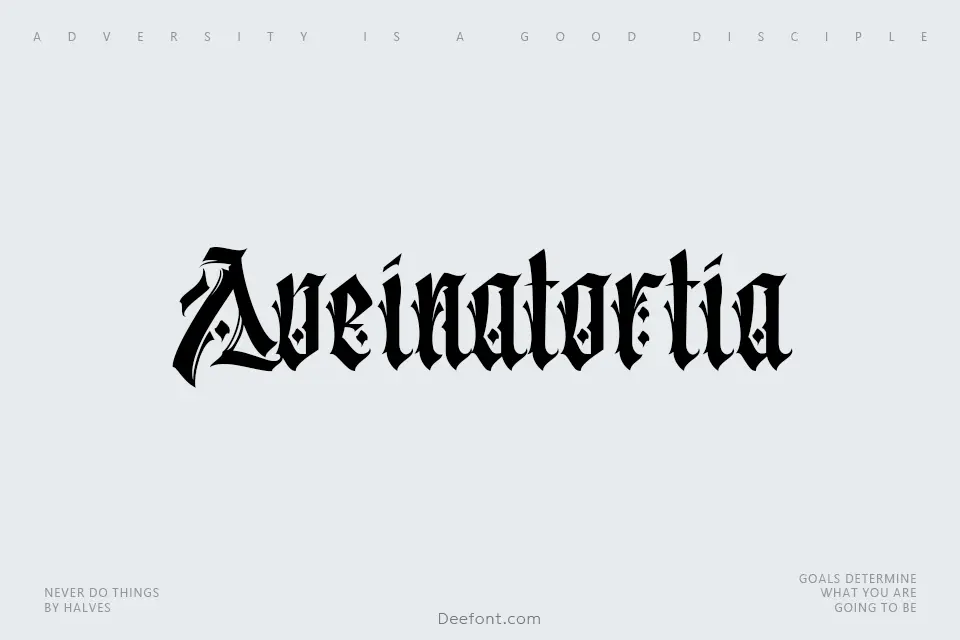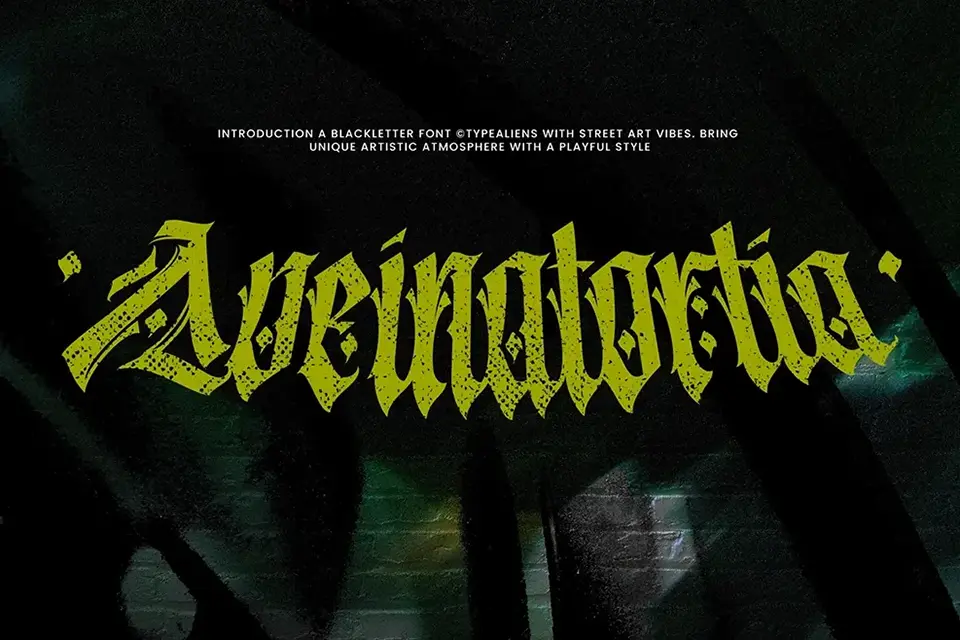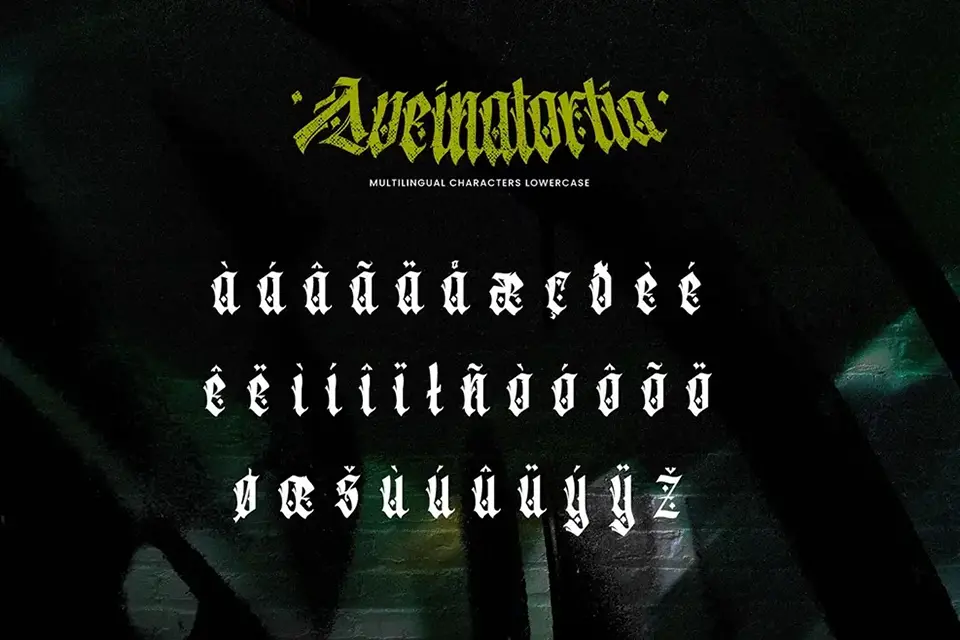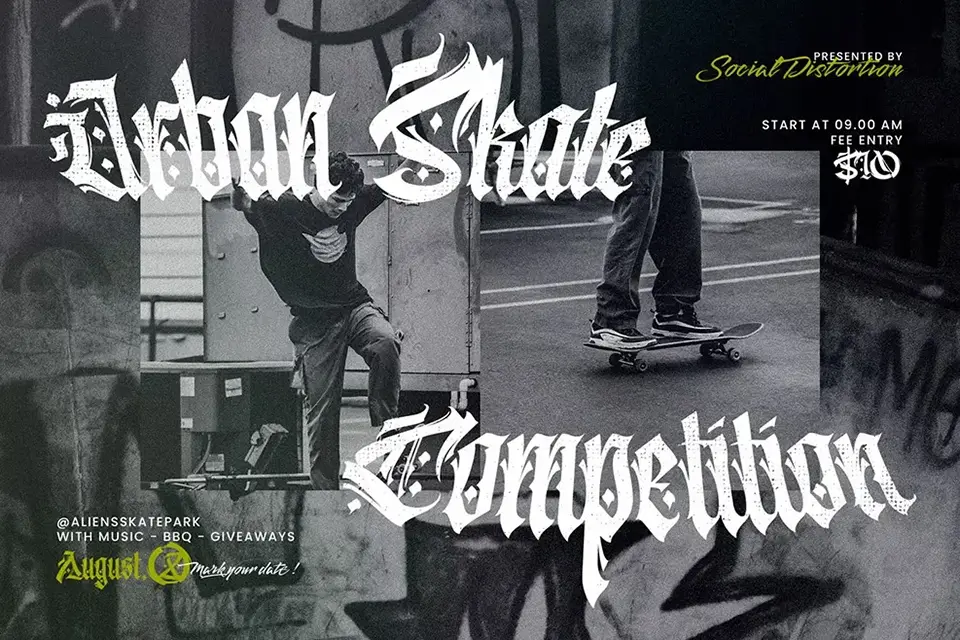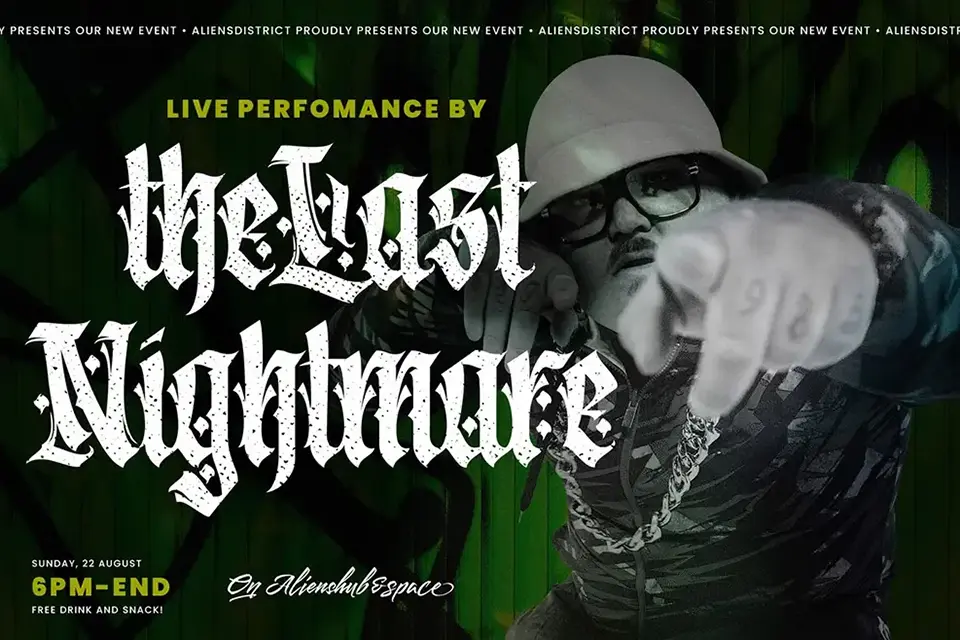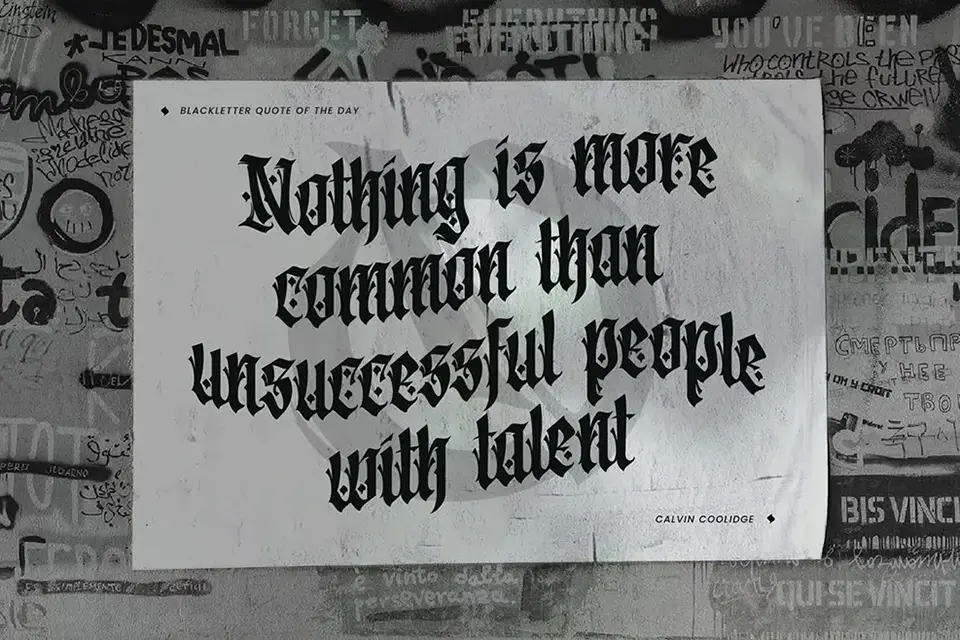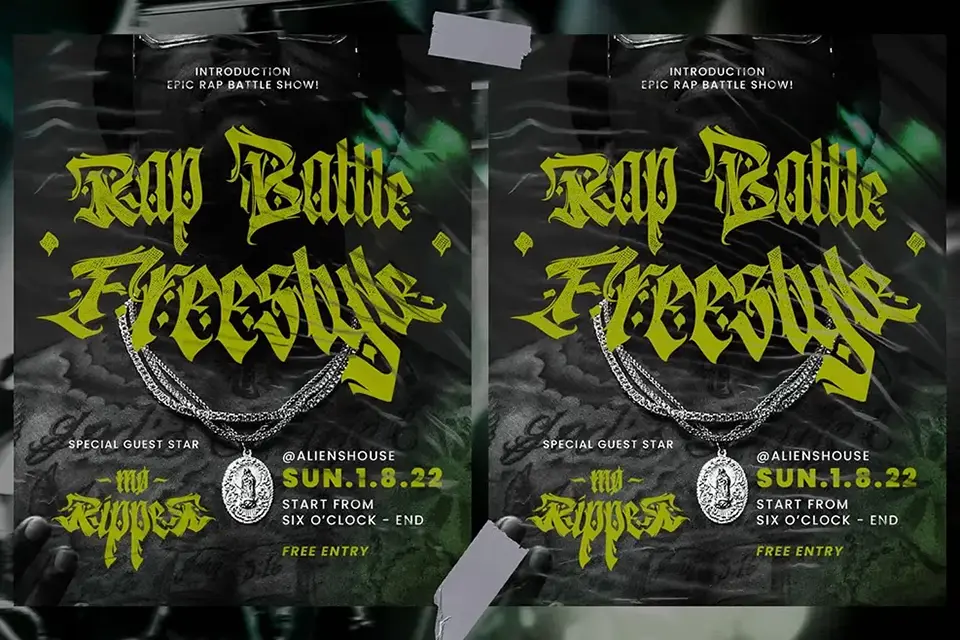
Aveinatortia Font
Aveinatortia is a captivating blackletter-inspired graffiti font featuring bold, angular letterforms blended with modern urban aesthetics. Its striking design combines gothic influences with decorative ornaments, creating a visually arresting typeface ideal for headline text, logos, and branding materials. With its condensed width and edgy character, Aveinatortia delivers raw urban energy perfect for editorial layouts, fashion brands, and street-inspired creative projects seeking distinctive visual impact.